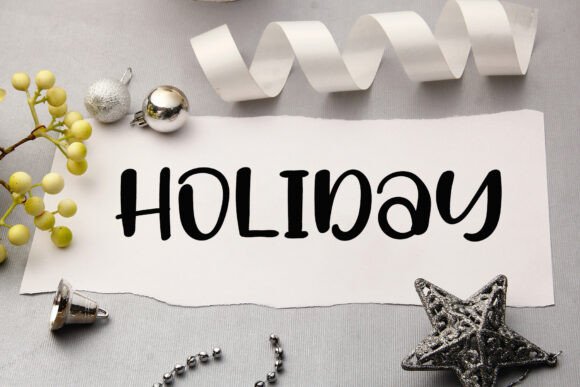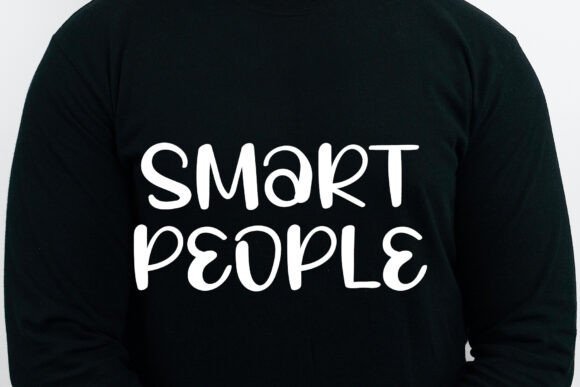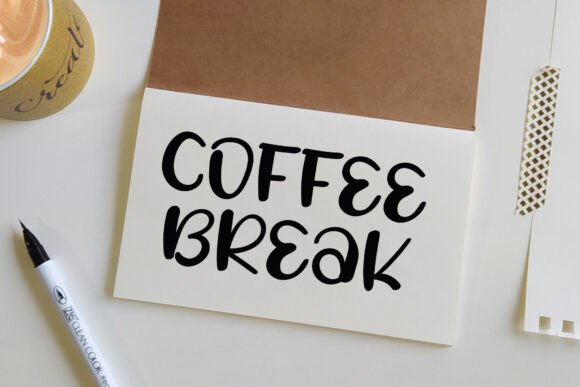
Introduction to Magic Writing Font
Magic Writing is a bold and captivating display font that commands attention with its strong, distinctive letterforms.
Designed to stand out, this powerful font blends creativity and impact, making it perfect for projects that need an eye-catching and memorable typographic style Whether you’re working on branding, posters, or digital designs, Magic Writing adds a touch of bold magic to your visuals.
Key Features of Magic Writing Font